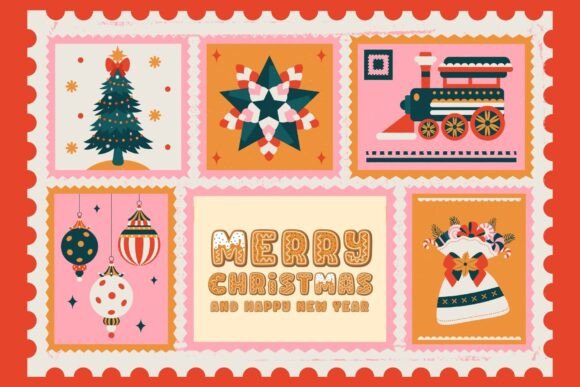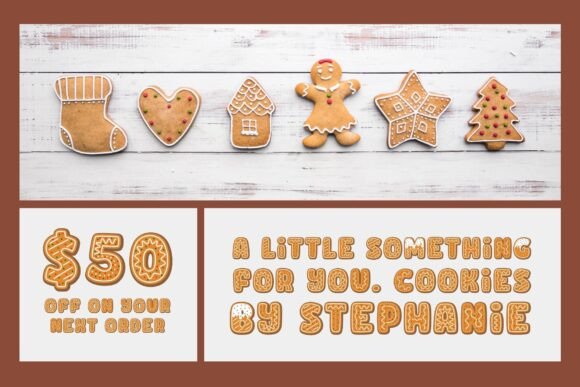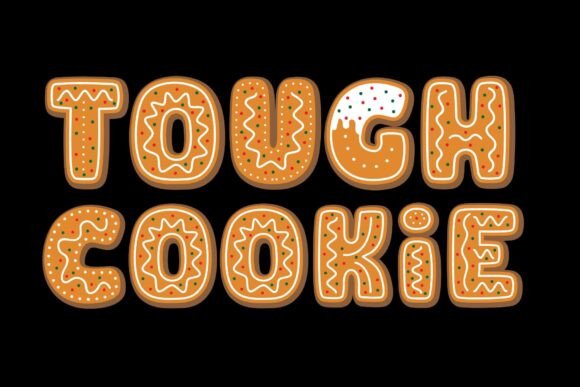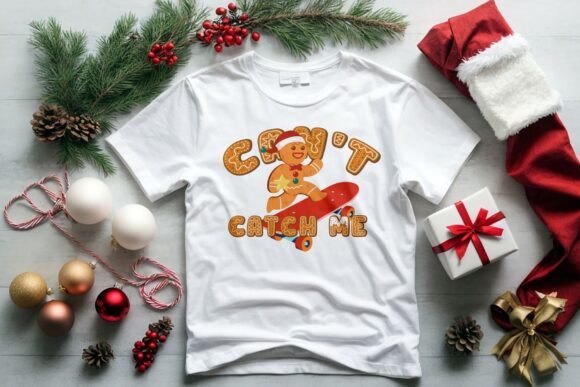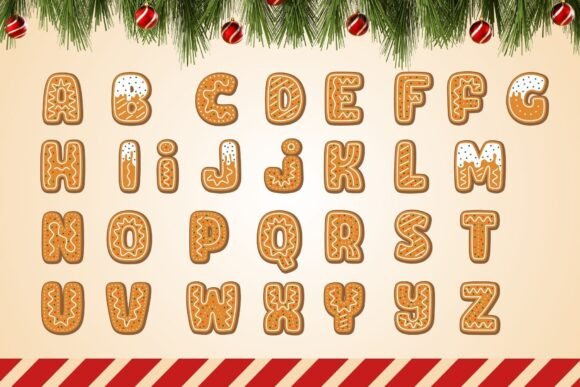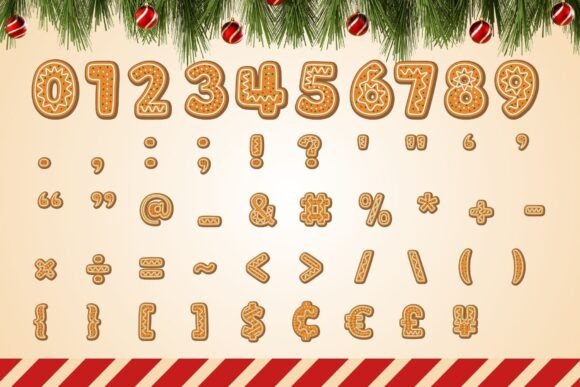
Introducing Fox Bread Font: The Ultimate Holiday Delight for Designers and Crafters
Are you looking for a font that can add a festive touch to your creative projects? Look no further than Fox Bread Font, a delightful gingerbread cookie-style color font that’s perfect for the holiday season. This charming font is designed to bring warmth and charm to your designs, making it ideal for creating greeting cards, posters, banners, invitations, and any other holiday-themed piece.
What is Fox Bread Font?
Fox Bread Font is a unique and festive color font that’s designed to resemble gingerbread cookies. Its playful and whimsical design makes it perfect for adding a touch of holiday cheer to your designs. Whether you’re a designer, crafter, or DIY enthusiast, this font is sure to become a favorite in your collection.
Key Features of Fox Bread Font
- Gingerbread cookie-style design: Fox Bread Font features a delightful gingerbread cookie-style design that’s perfect for the holiday season.
Fox Bread Font is perfect for designers and crafters who want to add a festive touch to their creations. Whether you’re designing holiday cards, gift tags, or decorations, this font is sure to bring a smile to your face and holiday cheer to your designs.
Fox Bread Font is a delightful and festive color font that’s perfect for adding a touch of holiday cheer to your designs. With its gingerbread cookie-style design and easy-to-use format, this font is sure to become a favorite in your collection. So why wait? Download Fox Bread Font today and start spreading holiday cheer with every design!